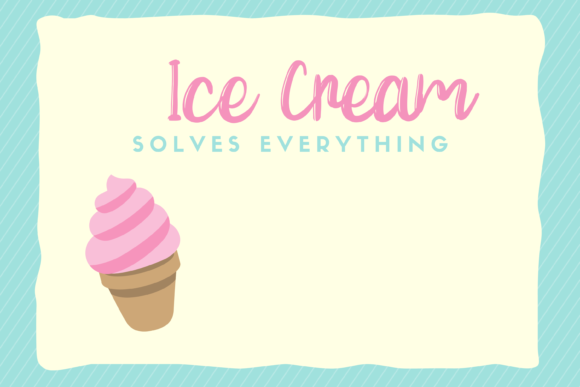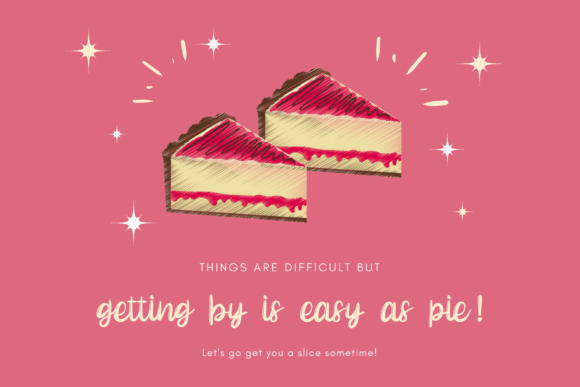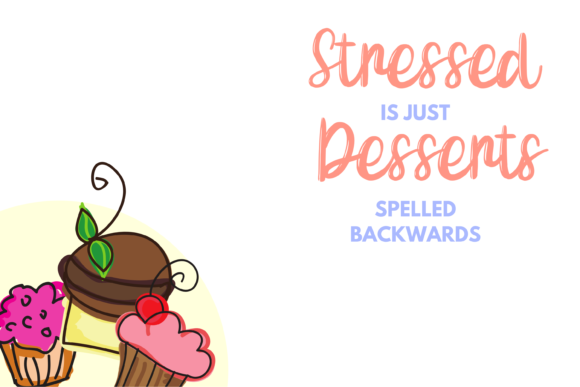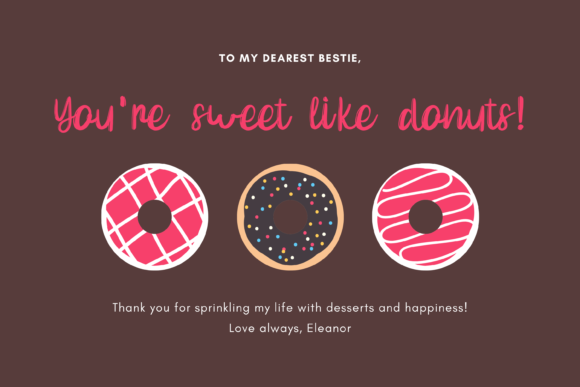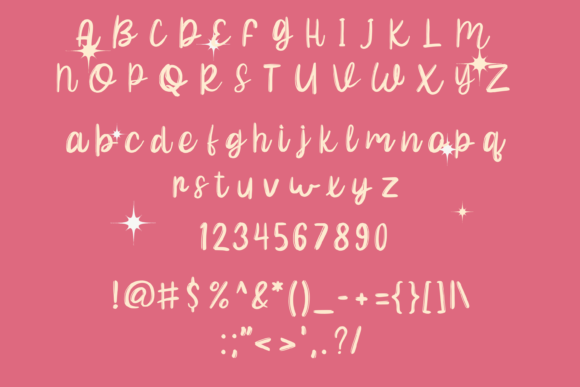
Introduction to Little Pudding Font
Little Pudding is a chic, casual and friendly handwritten font.
Key Features of Little Pudding Font
Why Choose Little Pudding Font?